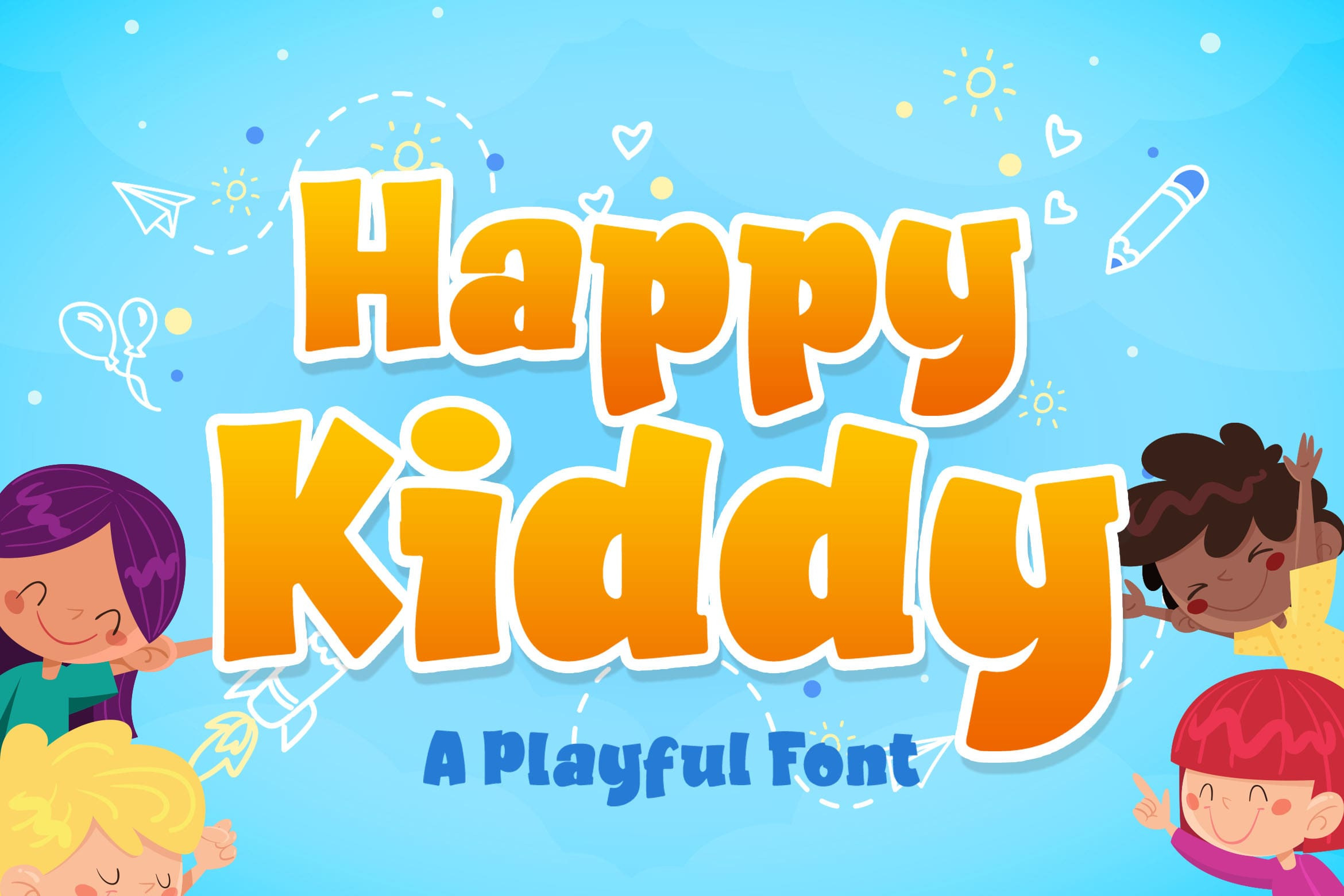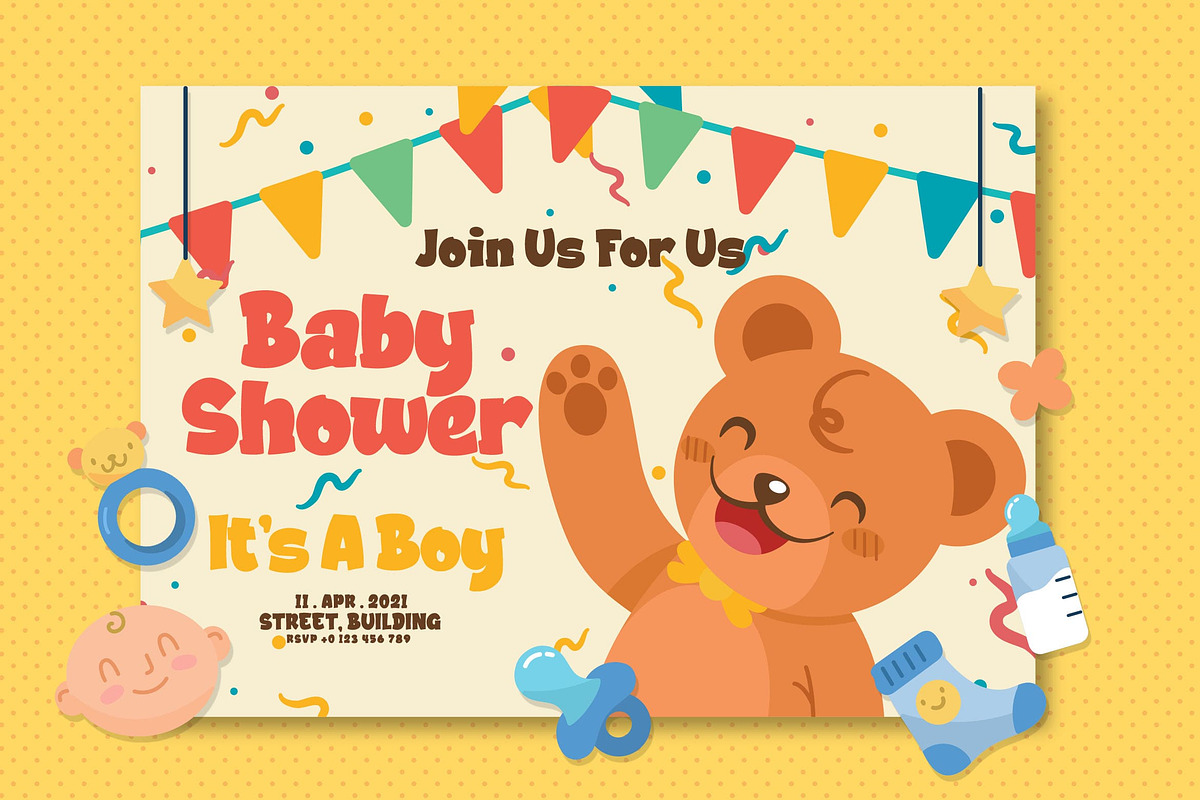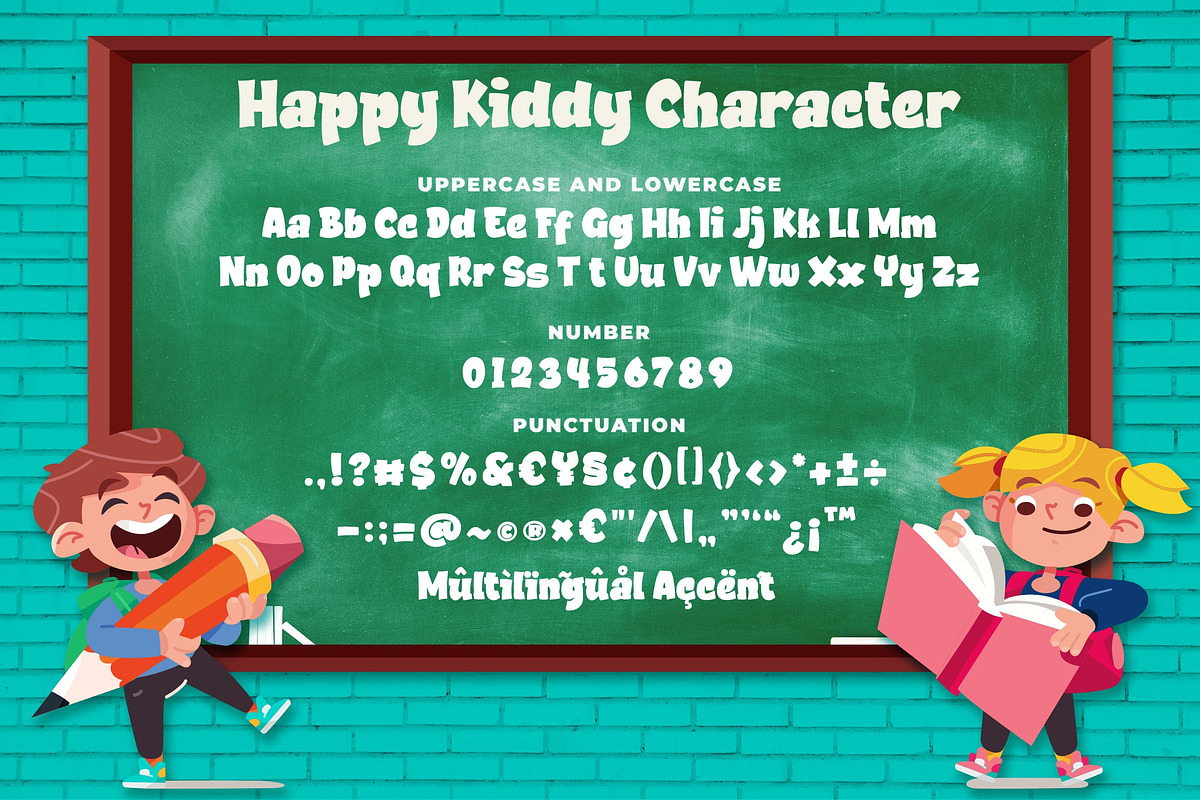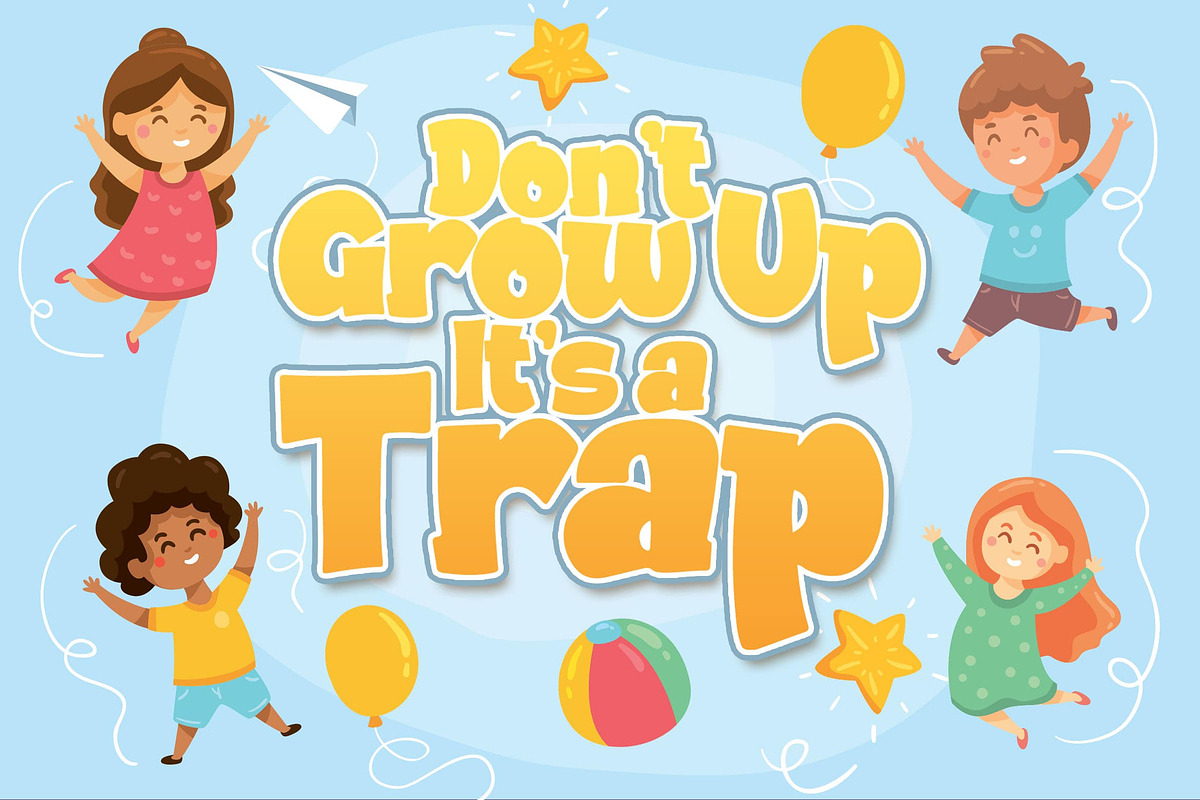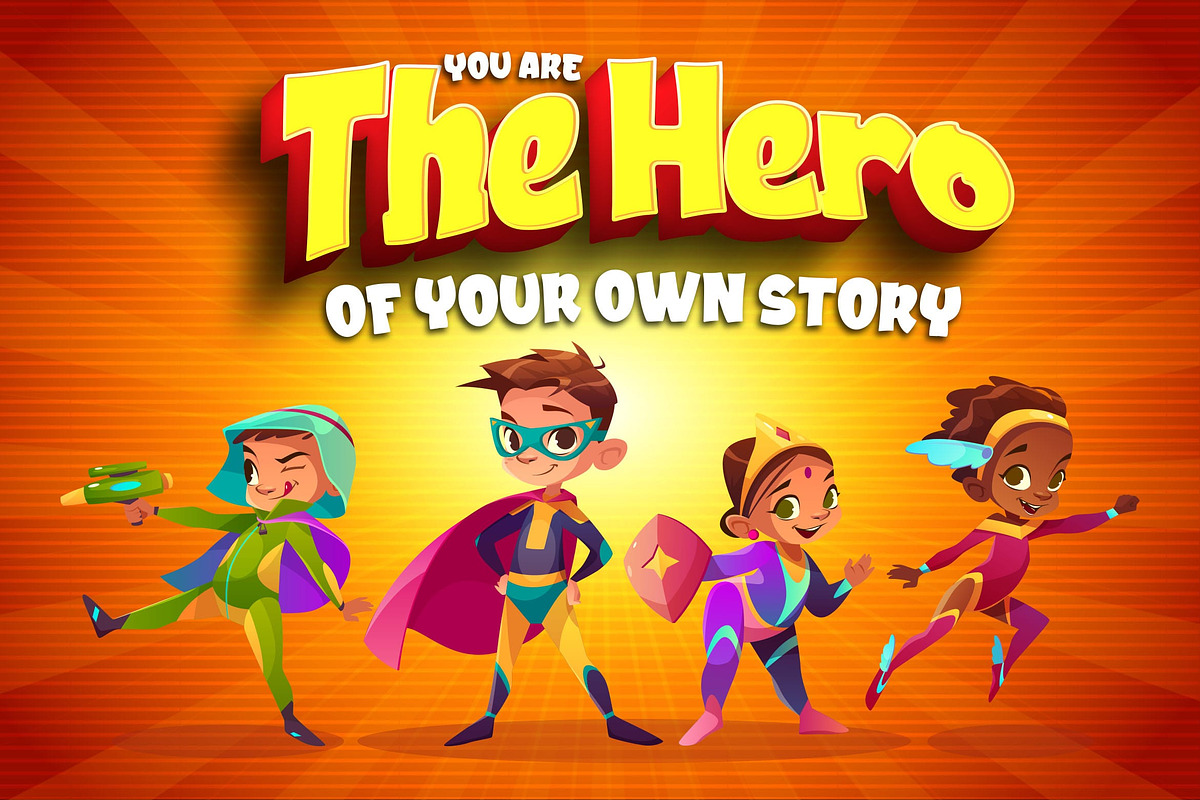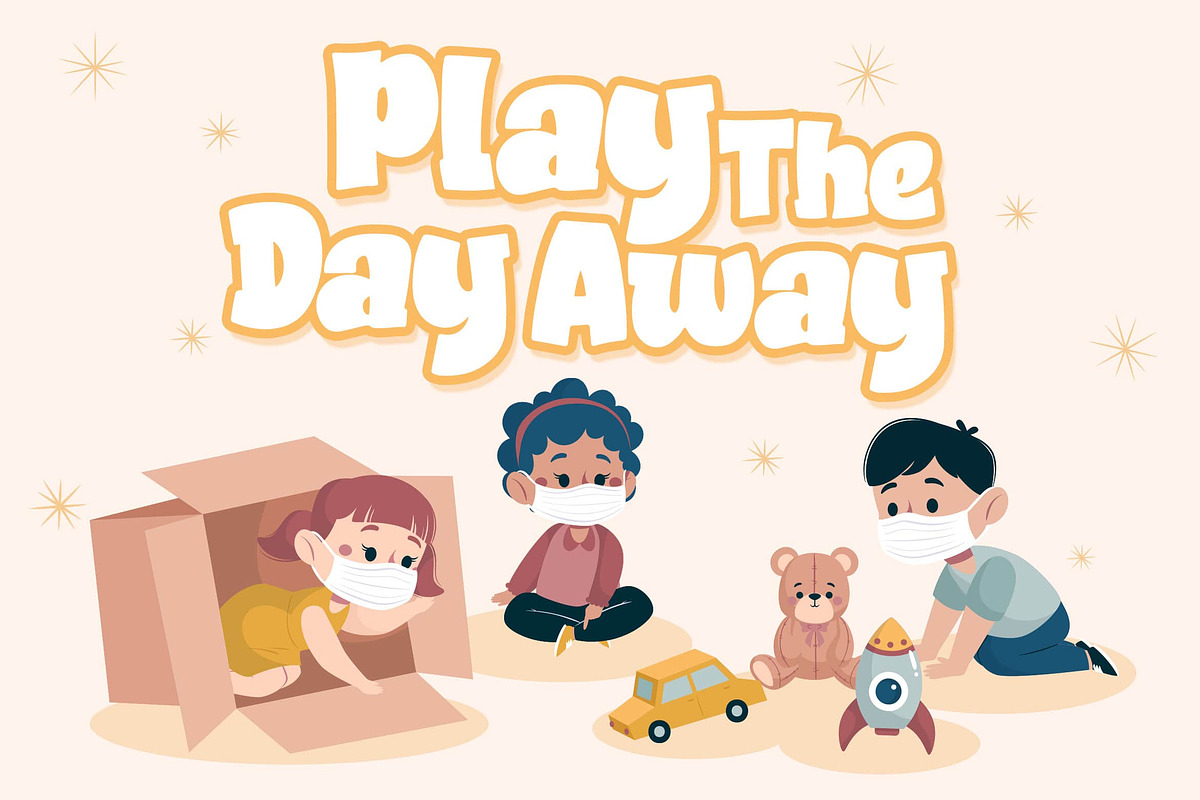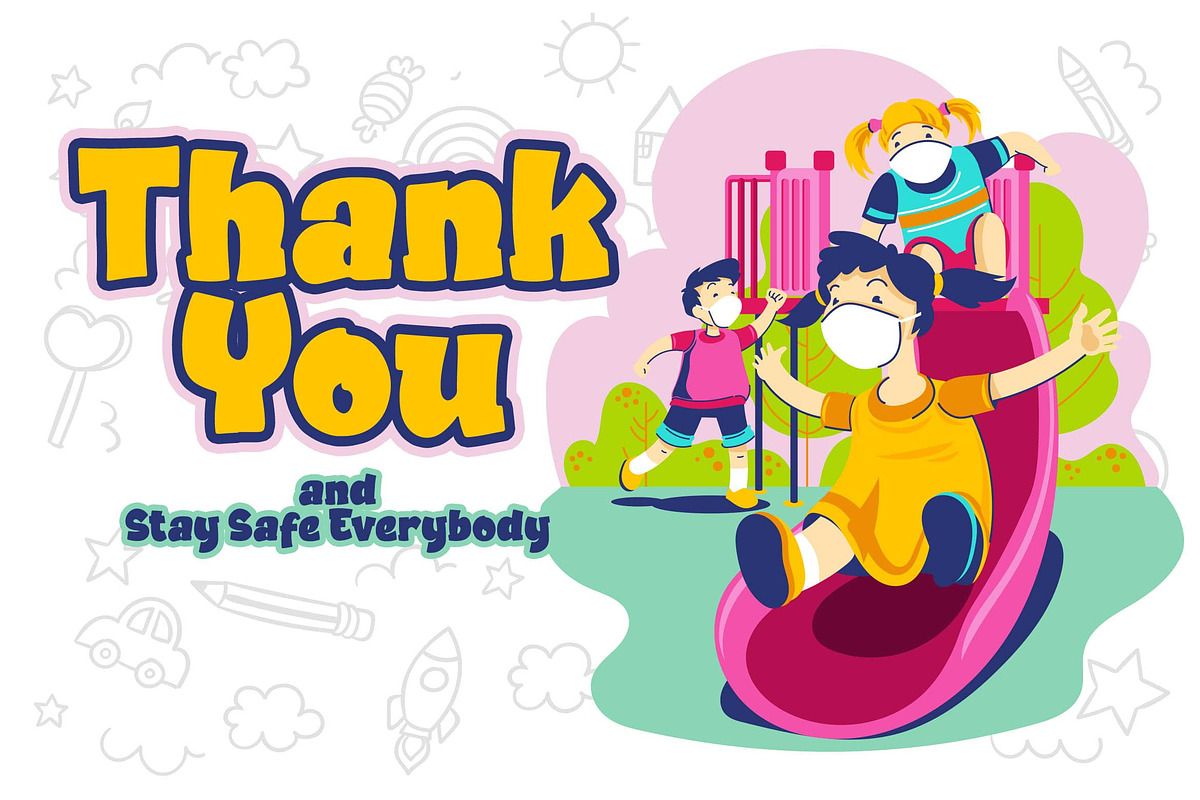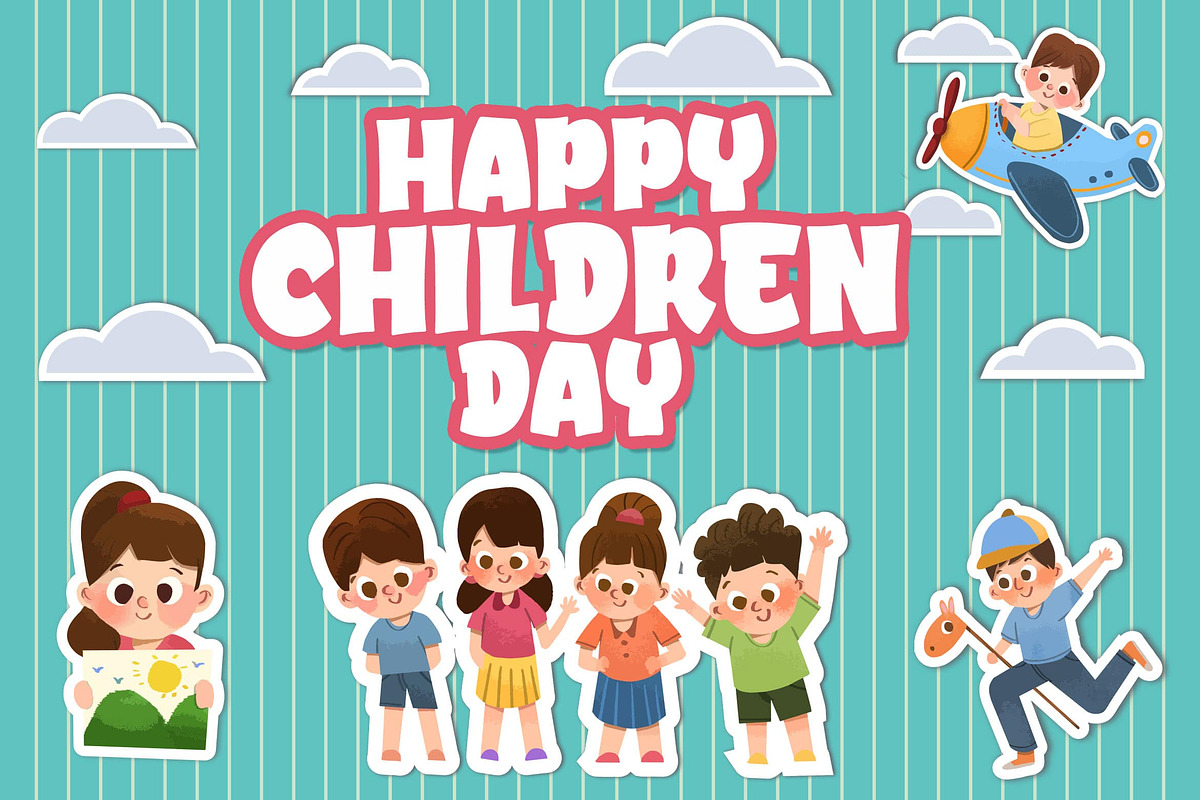
Happy Kiddy - a Playful Font
Introducing of our new product the name is Happy Kiddy a Playful Font. Happy Kiddy inspired by kids style with a fun theme very good for food poster, children book, kids poster, flyer, craft etc
MULTILINGUAL ACCENT :
ØÆøæ¢ÐŒœÁĂÂÀÄĄÅÃǼĆČÇĈĊĎÉĔĚÊËĖÈĘĞĜĢĠĤÍĬÎÏİÌĮĨĴĶĹĽĻĿŃŇŅÑÓŎÔÖÒŐǾÕŔŘŖŚŠŞŜȘ ŤŢÚŬÛÜÙŰŲŮŨẂŴẄẀÝŶŸỲŹŽŻáăâäàąåãǽćčçĉċďéĕěêëėèęğĝģġĥíîïìįĩĵķĺľļŀńʼnňņñóŏôöòőǿõŕřŗśšşŝșťţ ŭûüűùųůũẃŵẅẁýŷÿỳźžż